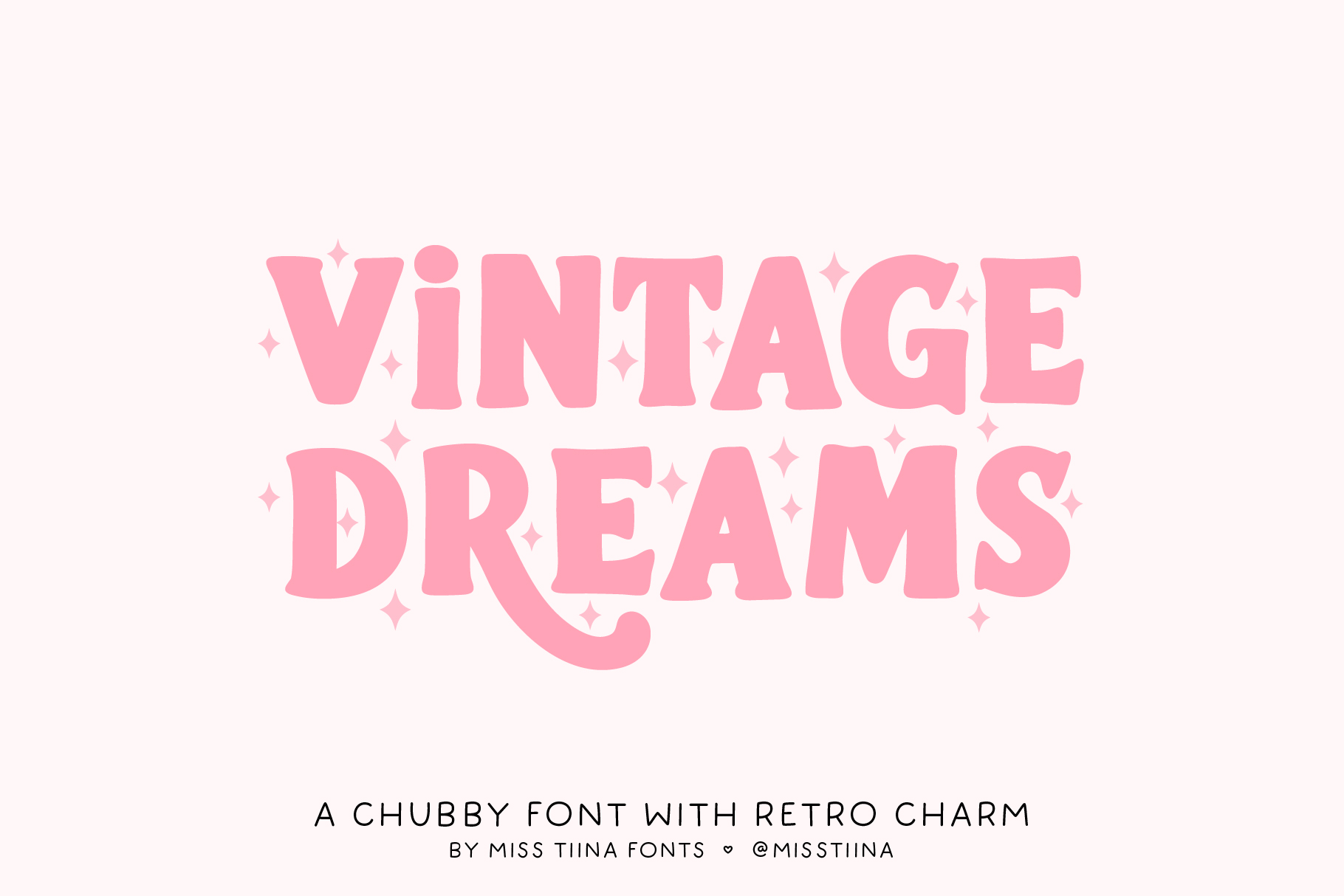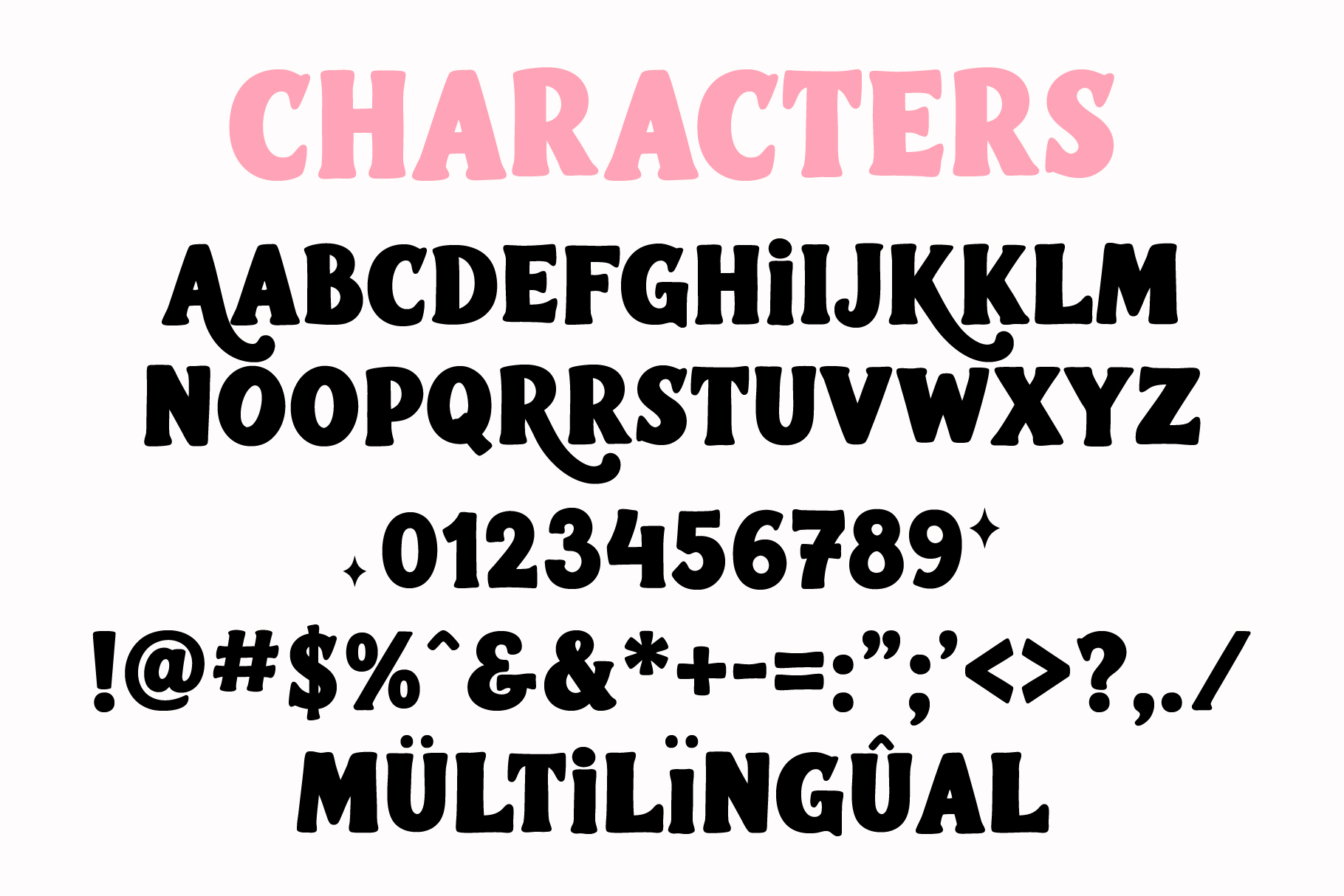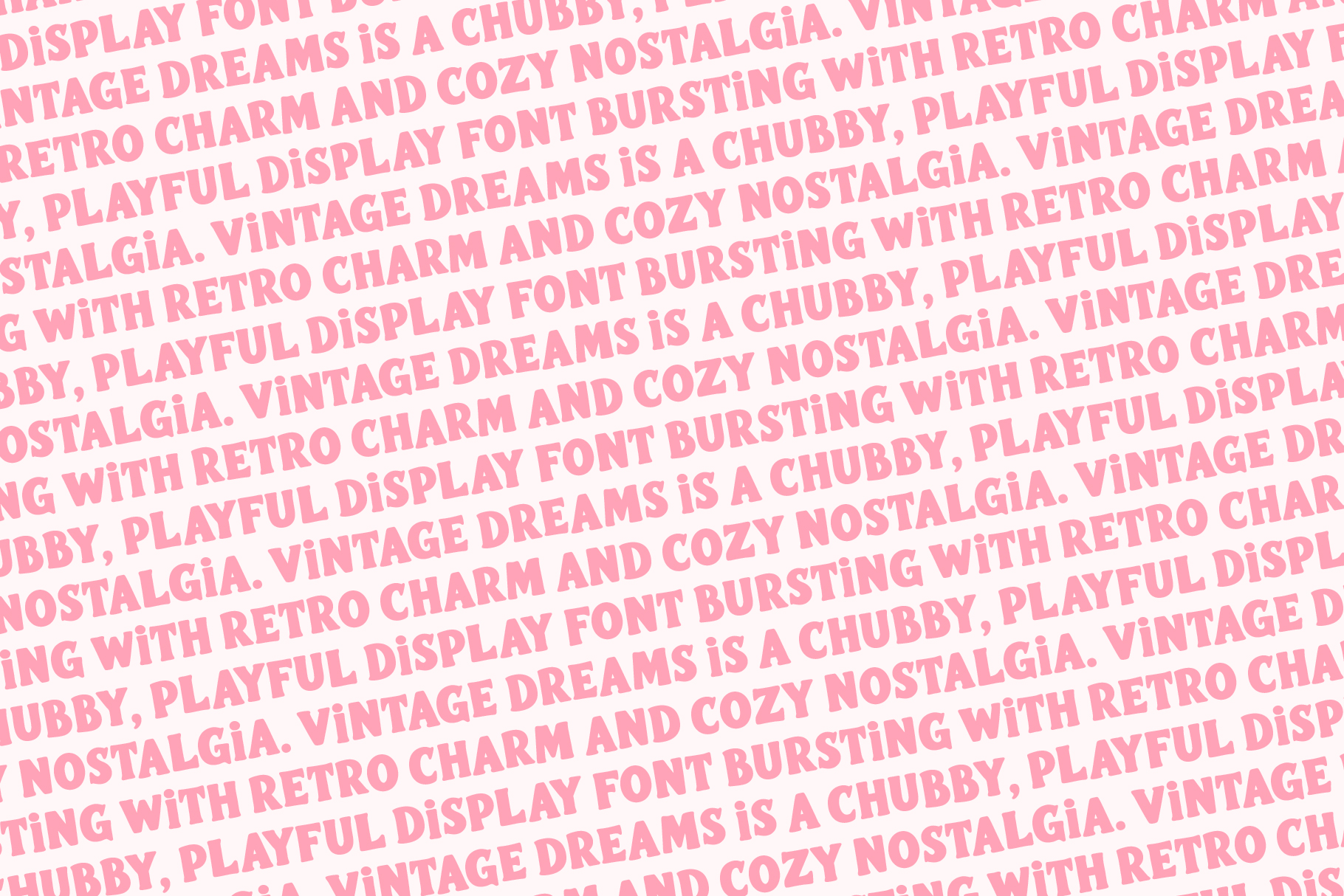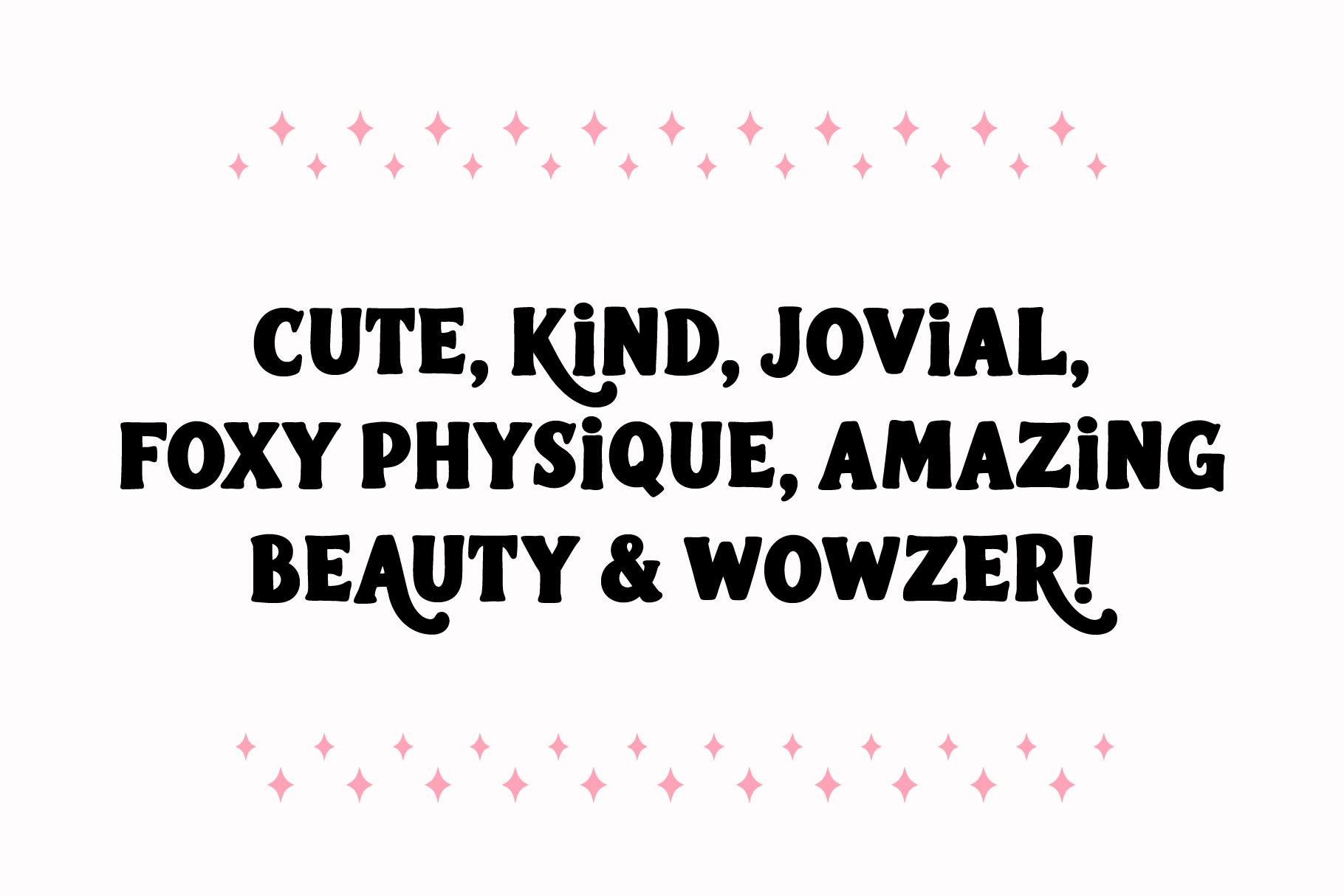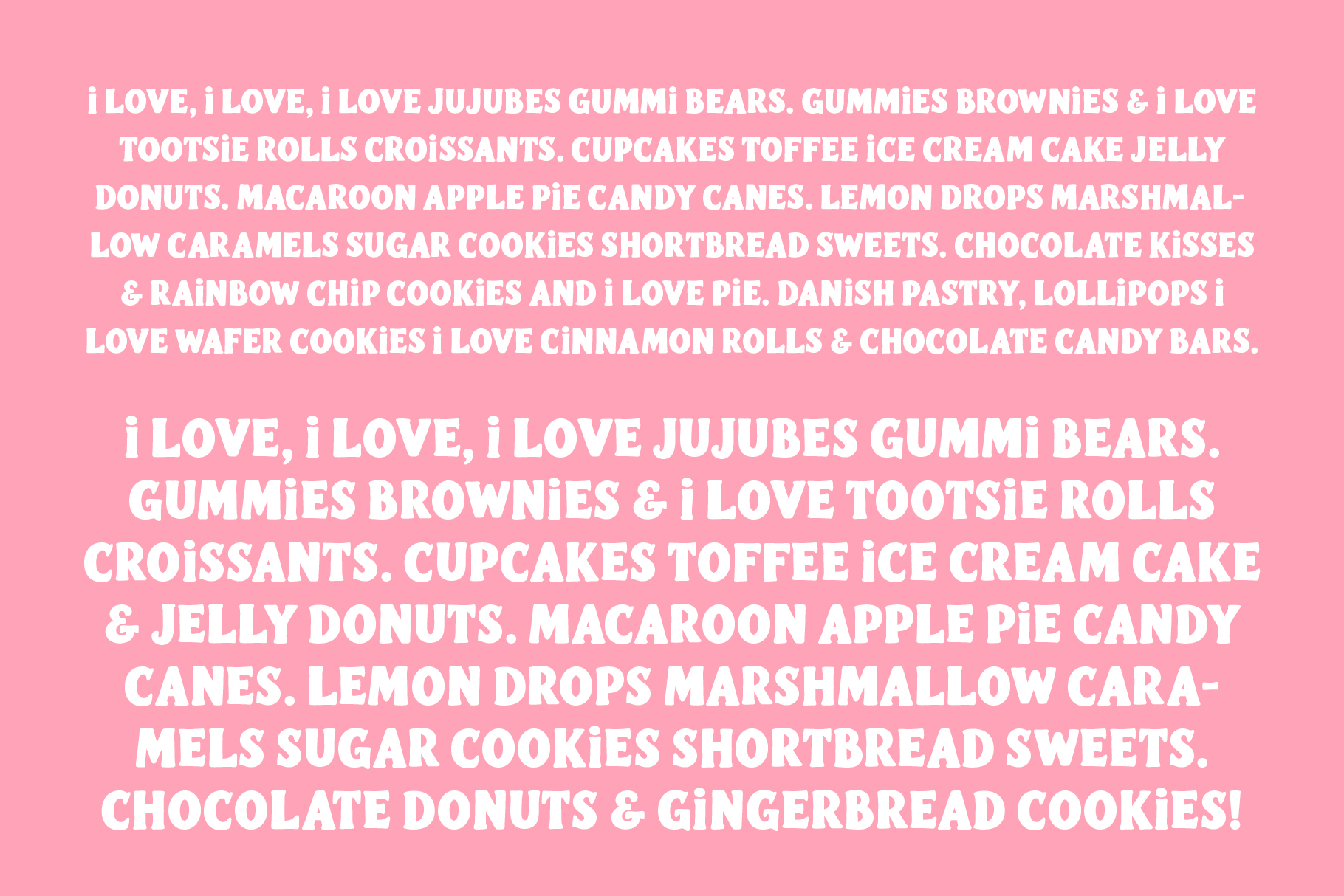
MTF Vintage Dreams
Vintage Dreams is a chubby, playful display font bursting with retro charm and cozy nostalgia. Its bold, rounded letterforms and hand-drawn quirks give it a warm, dreamy feel—like something pulled from a vintage cartoon or a well-loved sticker book. Fun, friendly, and full of personality, this font is perfect for cheerful headlines, stickers, kids’ projects, branding, and designs that want to feel happy, bold, and effortlessly retro.